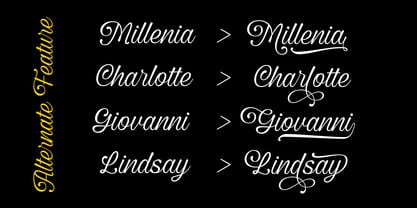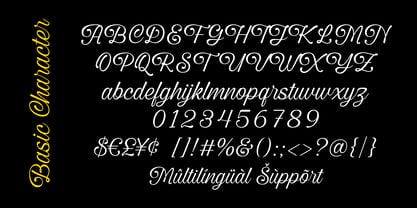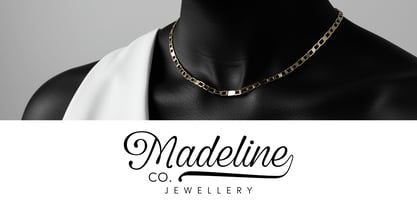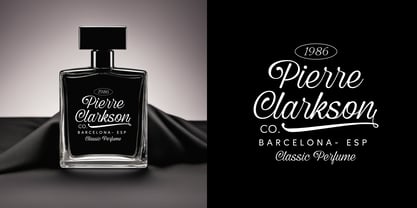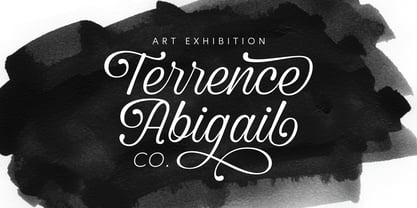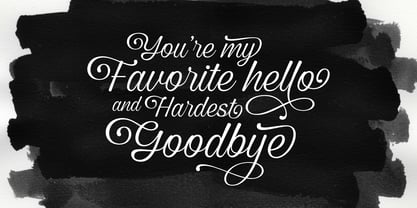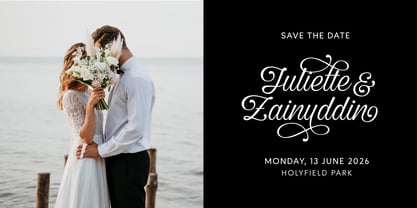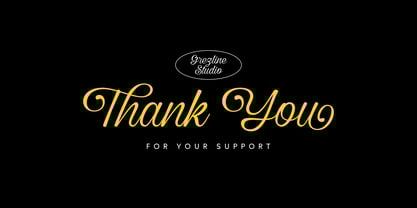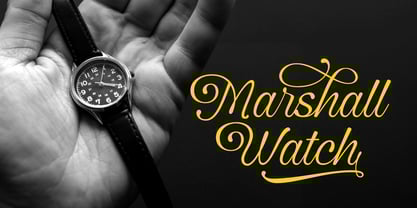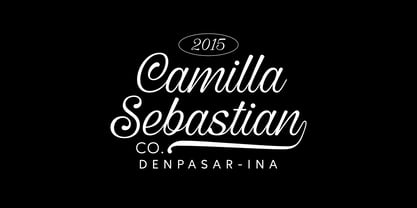
Vintage Millenia
by Grezline Studio
The Vintage Millenia Font Family was designed by Akhmad Reza Fauzi and published by Grezline Studio. Vintage Millenia contains 1 styles. More about this family
Meet Vintage Millenia, the exquisitely crafted calligraphy font that transforms ordinary text into an heirloom. Designed for those who believe detail is destiny and elegance is everything, this isn’t just a font—it’s the silent ambassador of your impeccable taste.
From timeless wedding invitations to sophisticated branding, luxury logos to heartfelt personal projects—each character flows with graceful precision, making every message momentous.
Feature :
- Alternate and Ligature
- Multilingual Language
Designers: Akhmad Reza Fauzi
Foundry: Grezline Studio